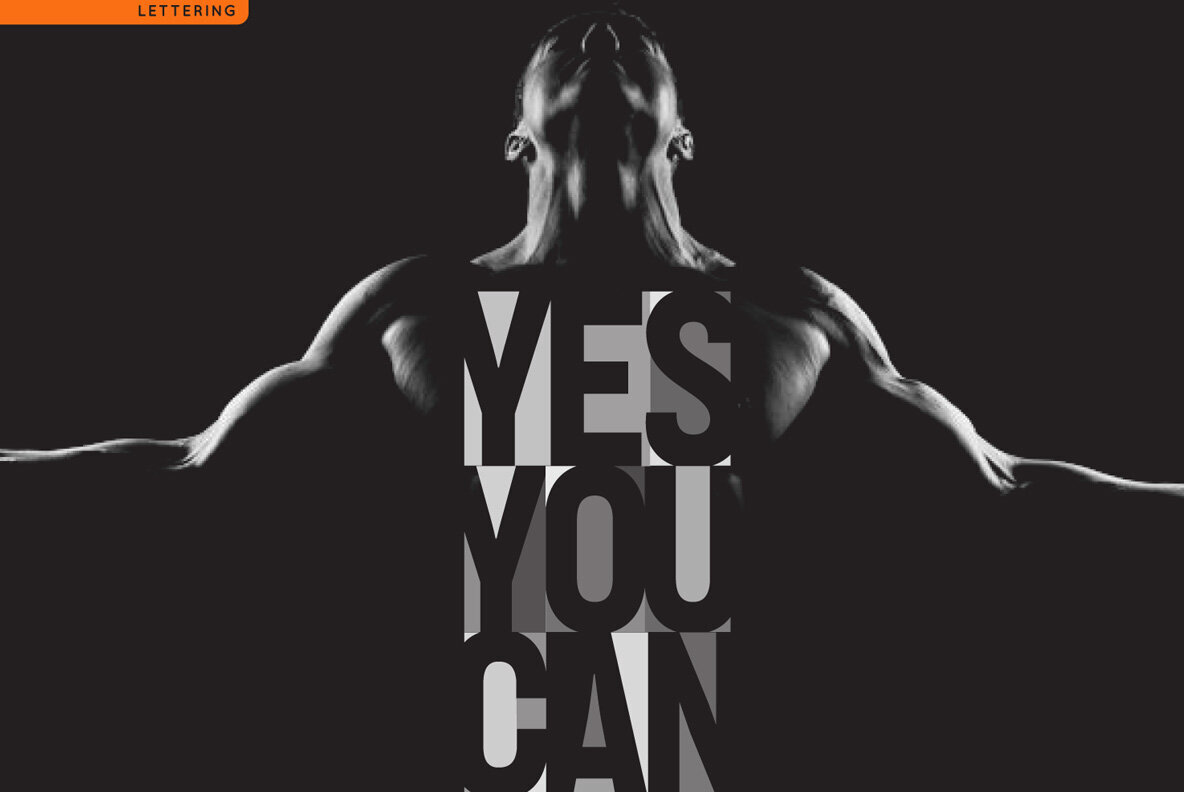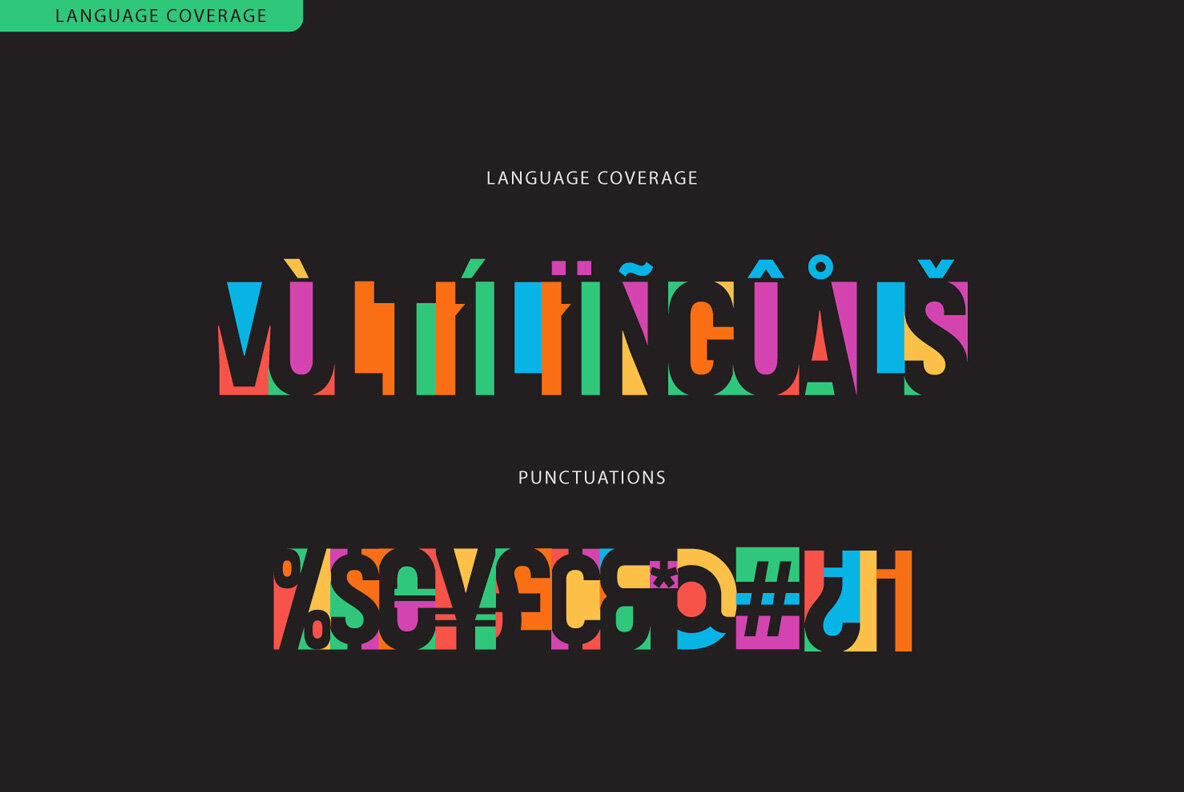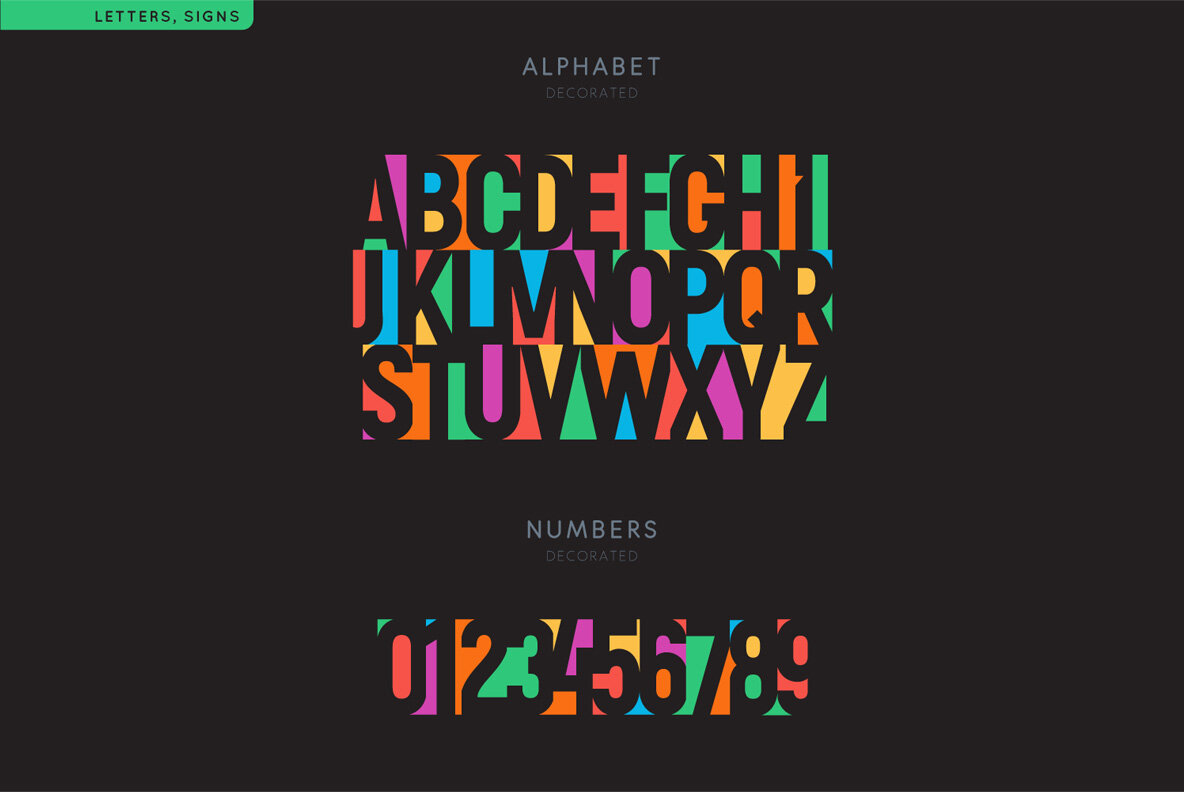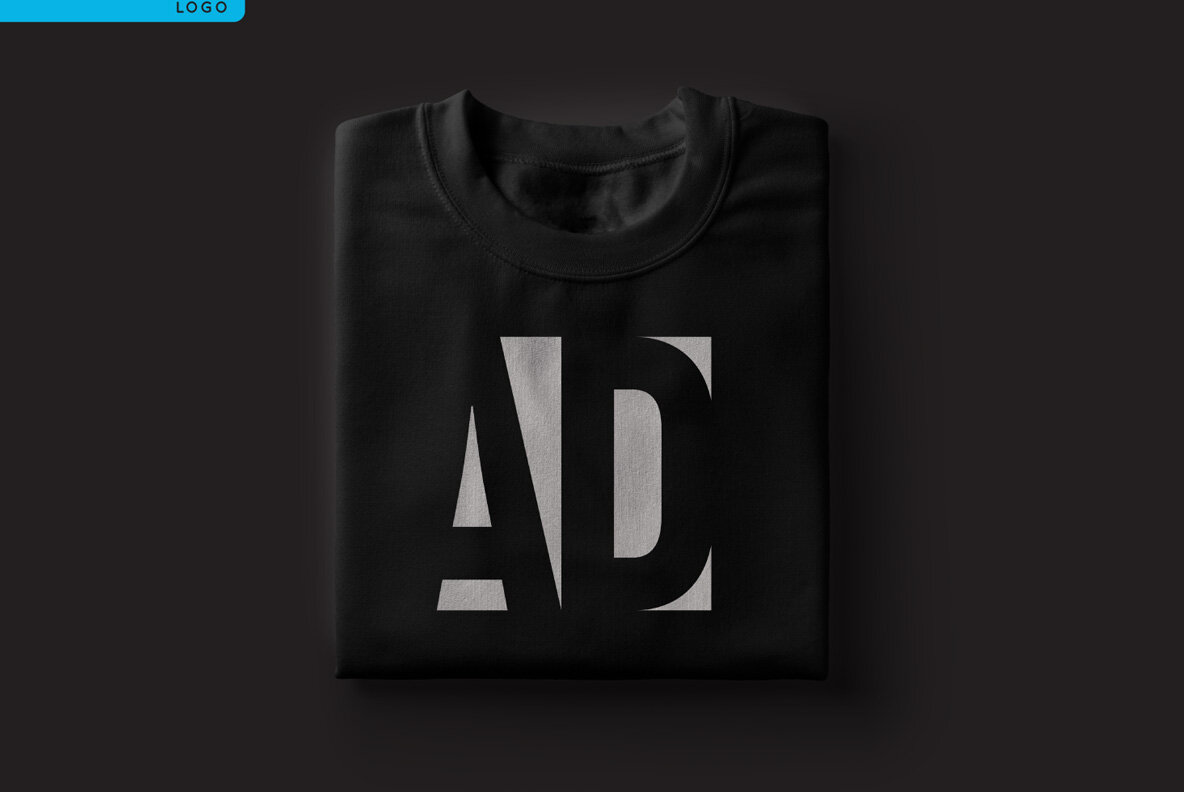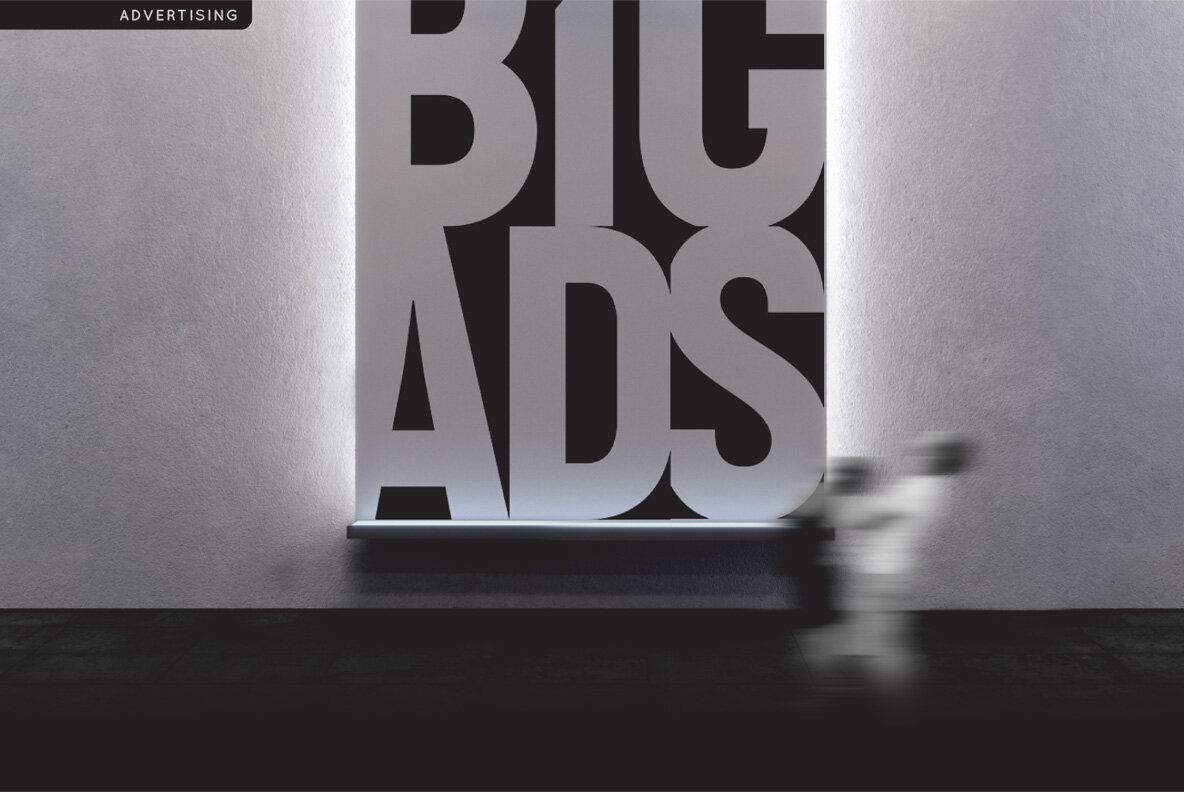
ColorPaper: Expressive Font with Geometric Elegance
ColorPaper is an innovative font designed to captivate with its unique use of negative space. This striking design combines originality with simplicity, offering a fresh perspective in typography.
Artistic Geometric Design
The font features meticulously crafted geometric shapes that transform each symbol into a piece of art. Whether you're designing posters, titles, logos, or emblems, ColorPaper opens up endless creative possibilities.
Unleash Creativity
Experiment with colors to fully explore this font's potential and create impactful designs. ColorPaper invites you to experience its visual appeal firsthand.